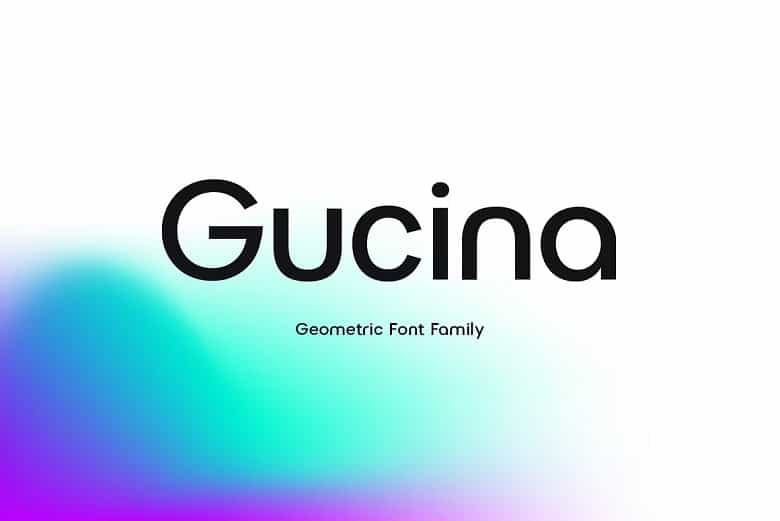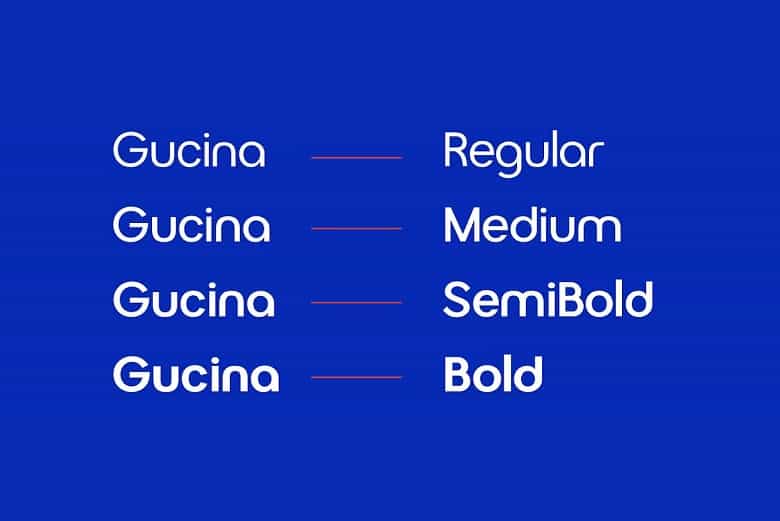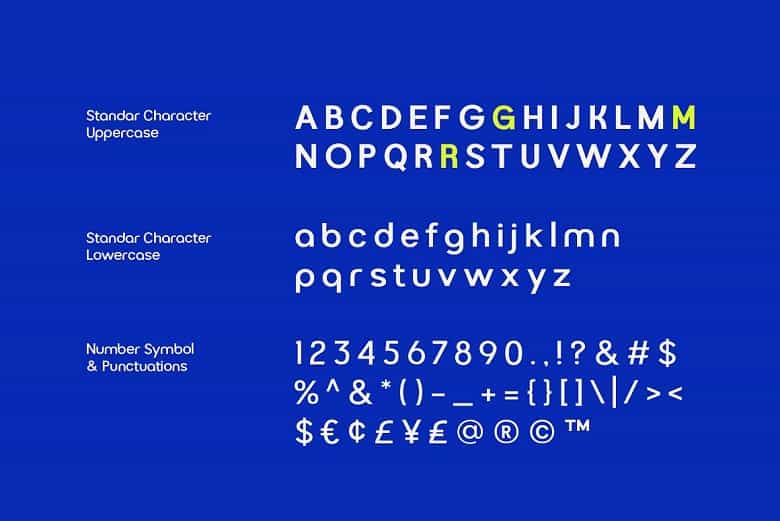
Here is the beautiful and sleek Gucina Geometric Font Family – a font that is suitable for many different designs. It’s suitable for any project that has a clean look and incorporates many straight lines and angles for its design; it works well for logos, ads, website design, and branding.